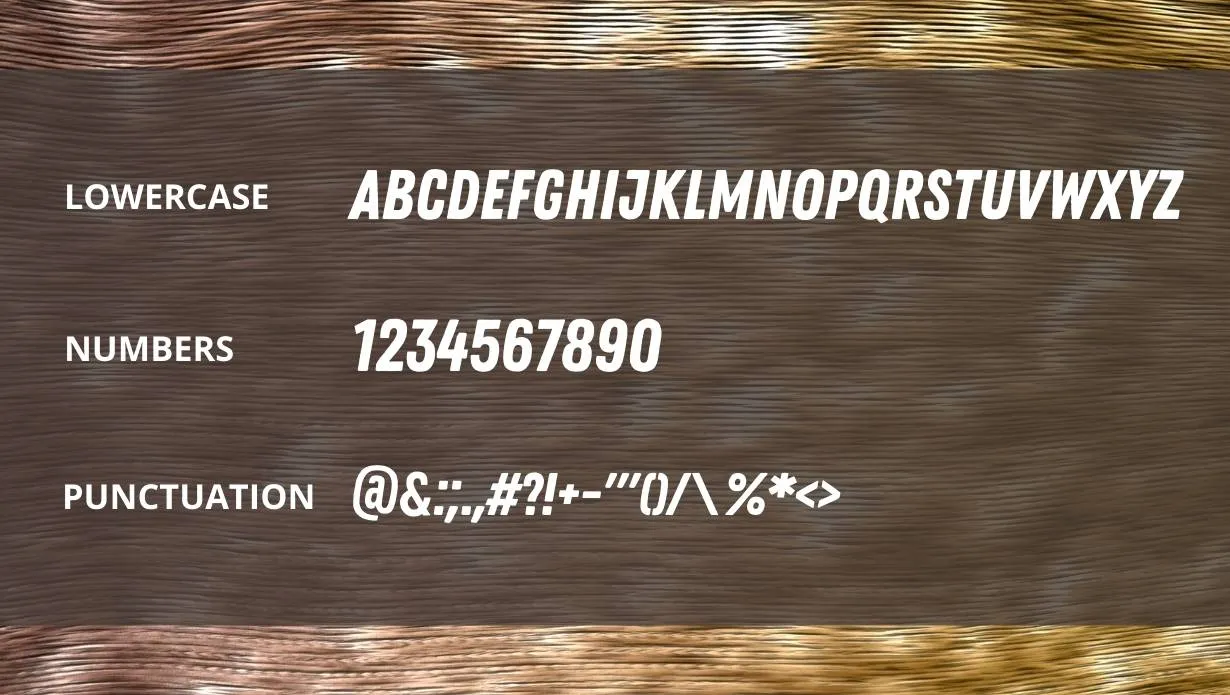
Zing Rust font is a typeface designed by Franz Hoffman and distributed by FontFont library. It is available in 6 weights: light, regular, medium, semibold, bold, and black with matching italics. The typeface has an open feel and sports rounded corners which makes it perfect for display typesetting on the web or in print.
Zing Rust Font Info
| Name | Zing Rust Font |
| Designer | Franz Hoffman |
| Style | Display |
View of Zing Rust Font